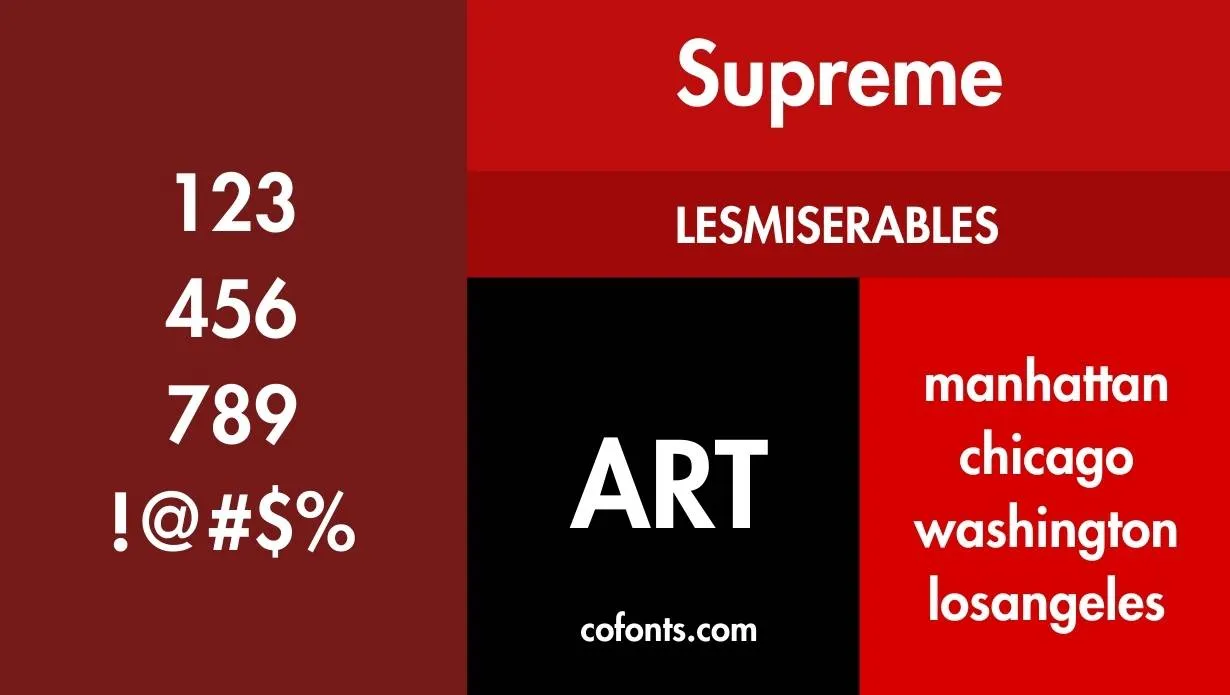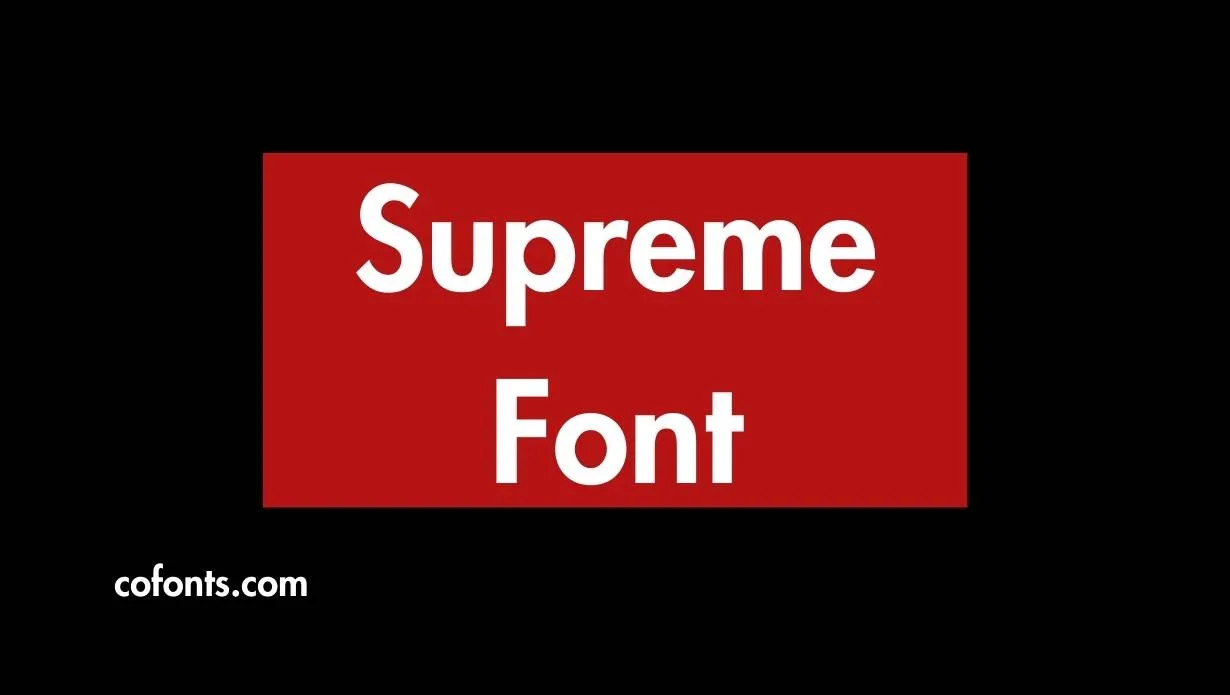
About Supreme Font Free Download
Supreme Font Free Download is a modern typeface available in multiple variants and styles.
- Supreme Font Regular
- Supreme Font Bold
- Supreme Font Italic